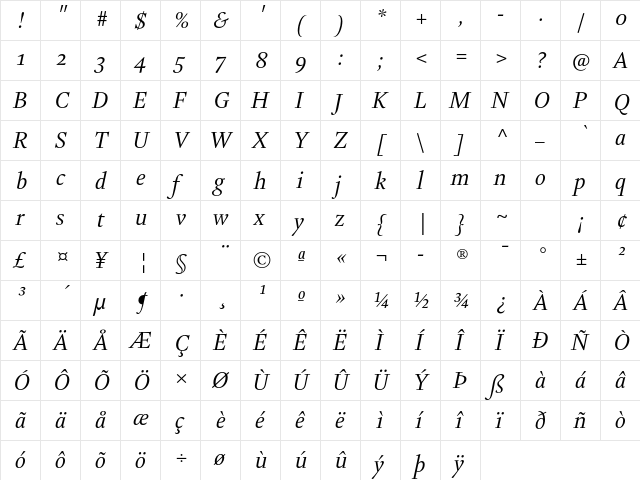
Kingfisher Display Italic
| Designer | Jeremy Tankard |
Design Context for Kingfisher Typeface
Kingfisher is built around its visual character rather than neutral utility — its distinctive forms are designed to make an impression at display sizes. The dynamic lean of this cut emphasises speed and emphasis in any layout.
Font Pairing: Pair with a clean neutral sans-serif for body copy to let Kingfisher's character lead without overwhelming the composition.
Pro Tip: Treat Kingfisher as the centrepiece of your typographic hierarchy. One strong heading set in a decorative face can carry an entire layout.